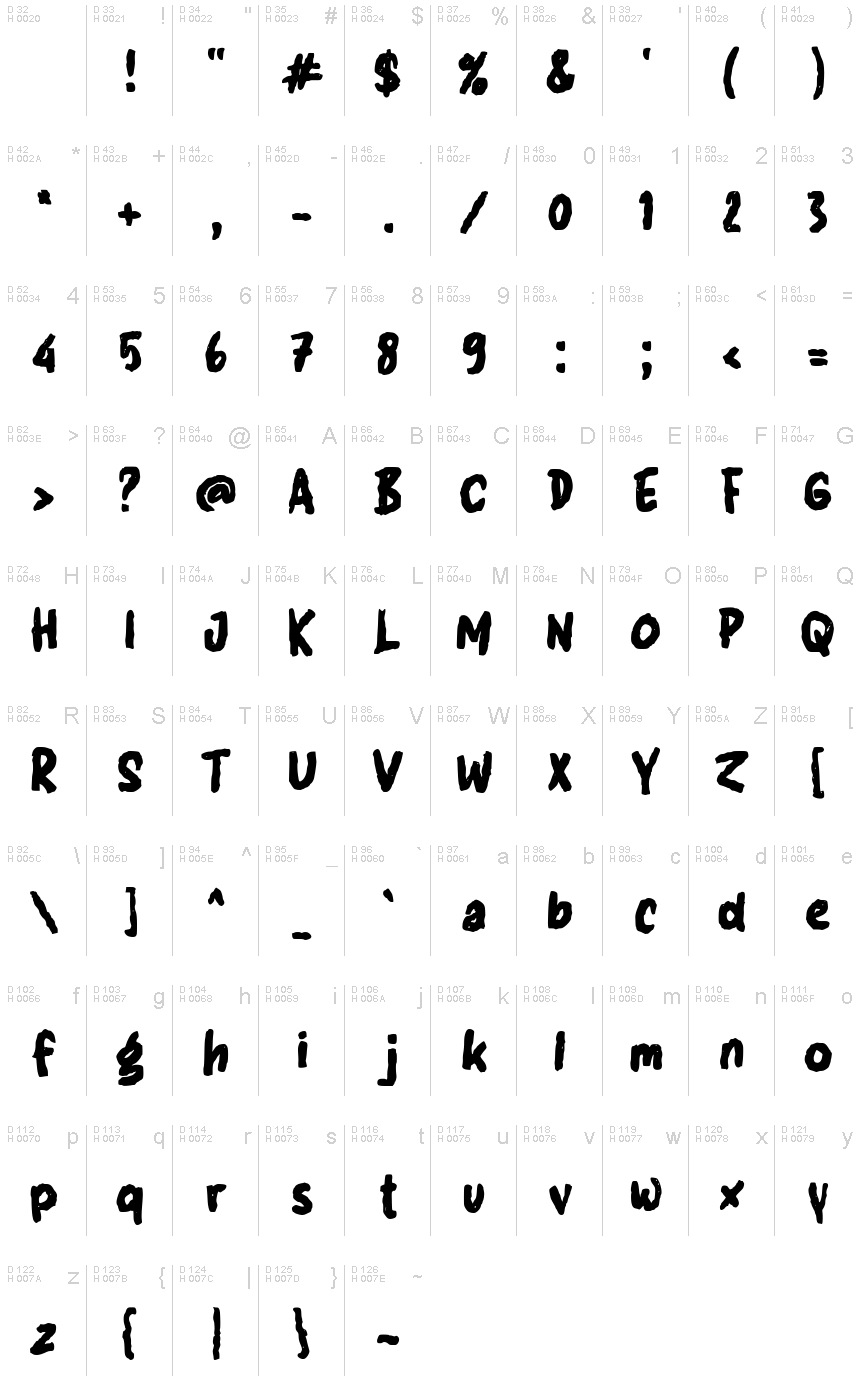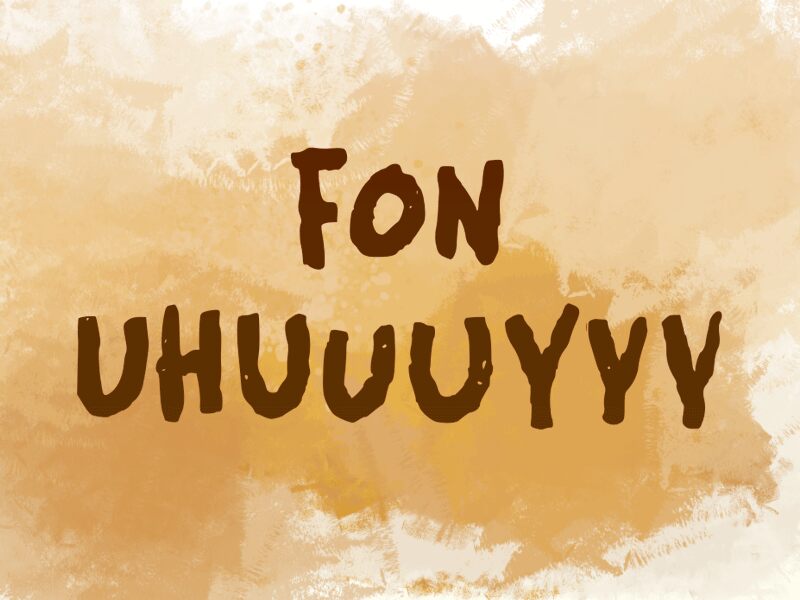
FON UHUUUYYY
Fon Uhuuuyyy, crafted by designer wep, is a script font that embodies a rebellious spirit with its trash style aesthetic. The characters spill with an untamed energy, giving the impression of hurried brush strokes or ink splatters that have found their way onto the canvas of the page. Its raw and edgy appeal evokes a sense of artistic freedom and bold expressiveness.
The Fon Uhuuuyyy font finds its place where design calls for an unconventional touch. From avant-garde fashion labels to poster designs for indie bands or underground art exhibitions, this font is sure to inject personality and stand out assertively in any context craving for a dash of creative anarchy.